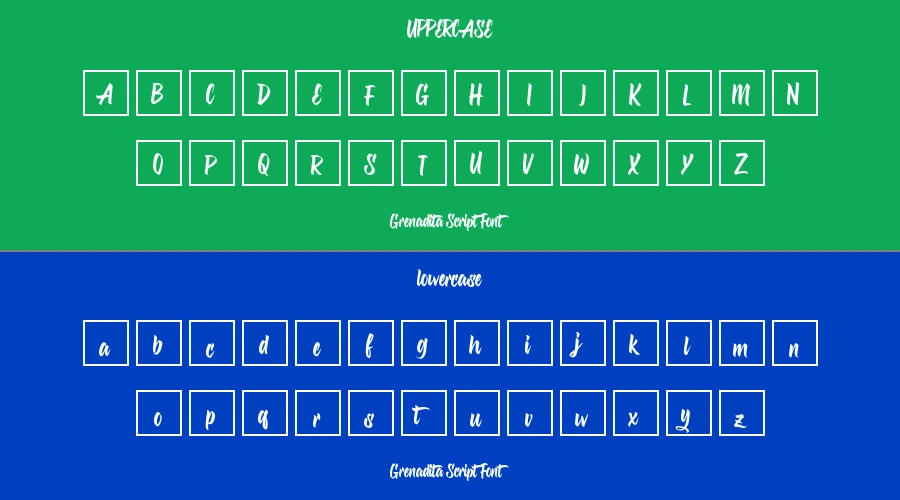
About Grenadita Script Font
Designed with precision, Grenadita Script Font merges alternates with classic beauty in every character. This versatility makes it particularly effective for web design, where consistency and visual appeal directly impact communication quality. Each letterform demonstrates meticulous craftsmanship.
Technical excellence shines through elements like distinctive details and period-specific forms, enhancing typographic versatility. In technical diagrams settings, Grenadita Script Font proves its worth through superior consistency. The thoughtful execution of x-height proportion and academic heritage ensures professional results.